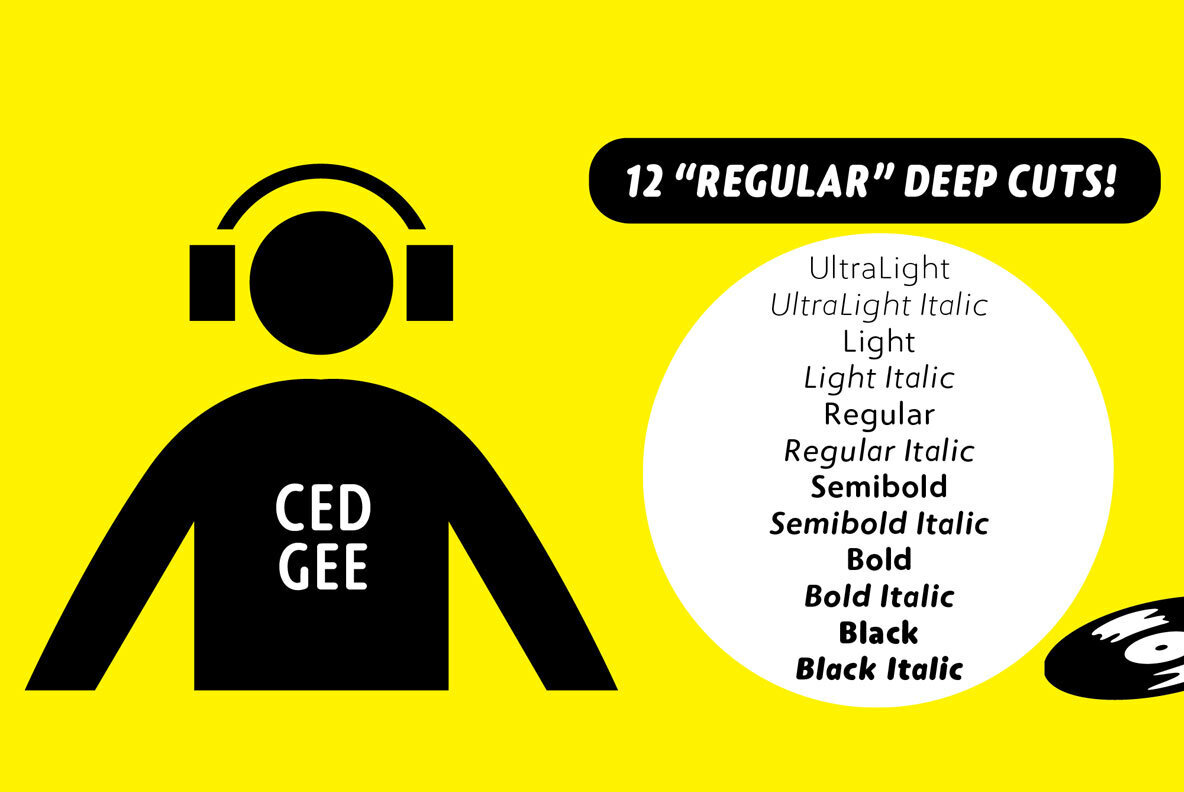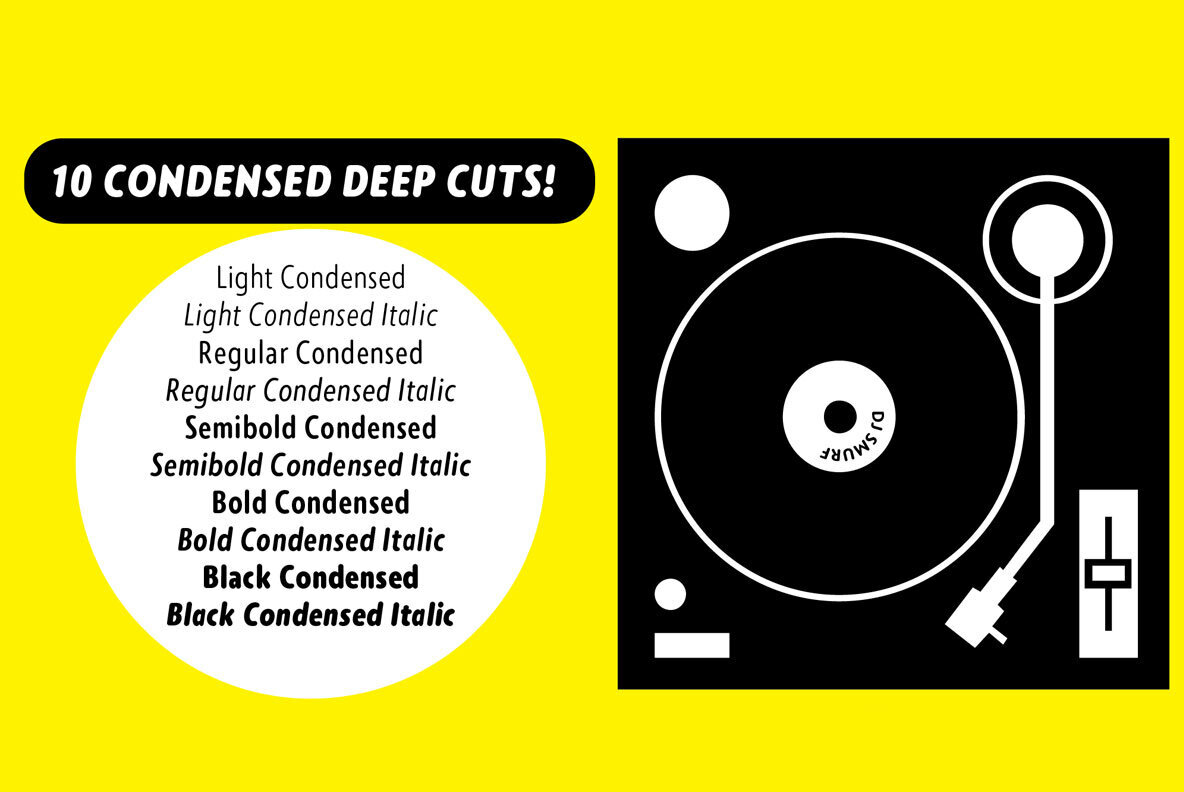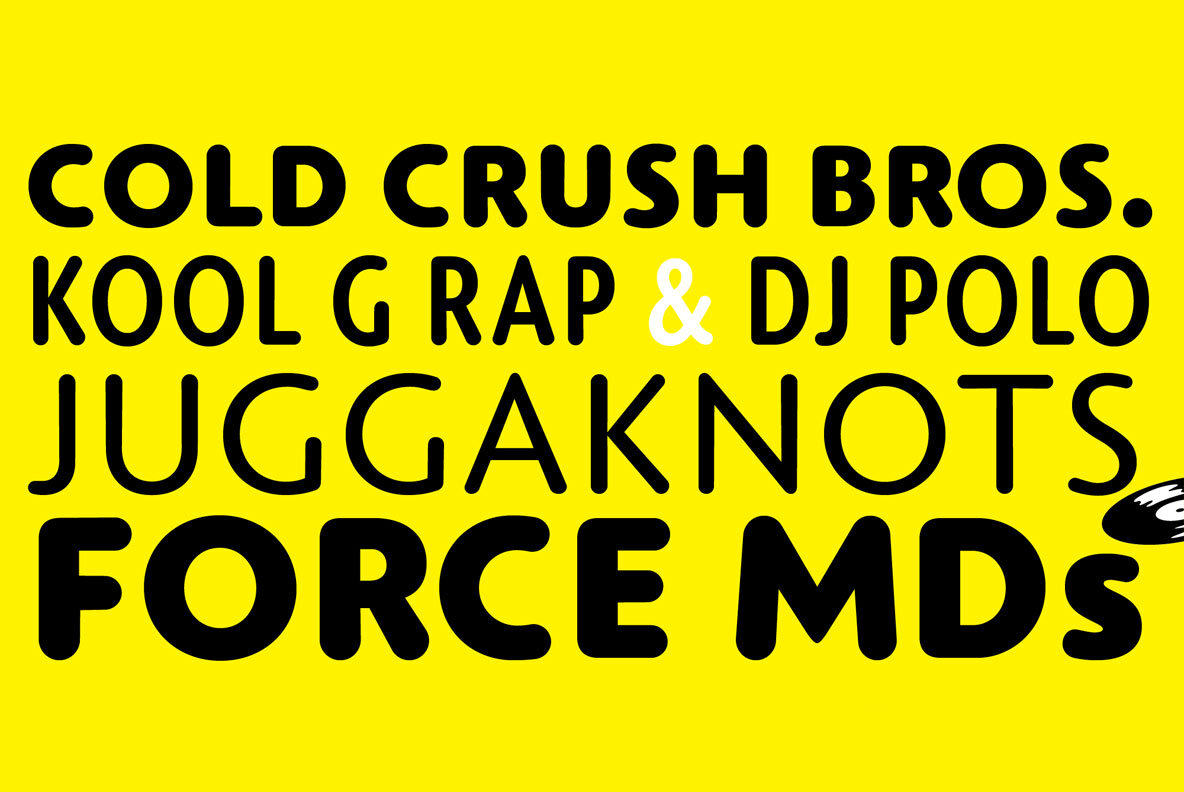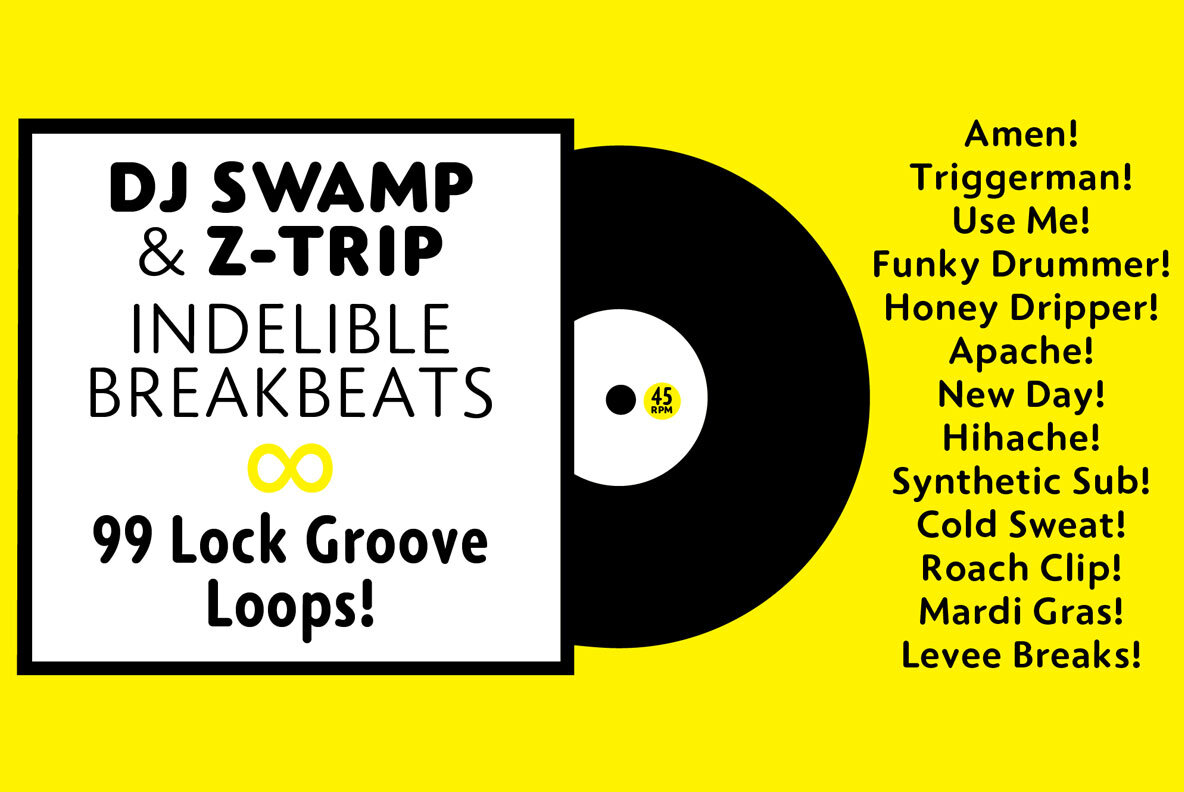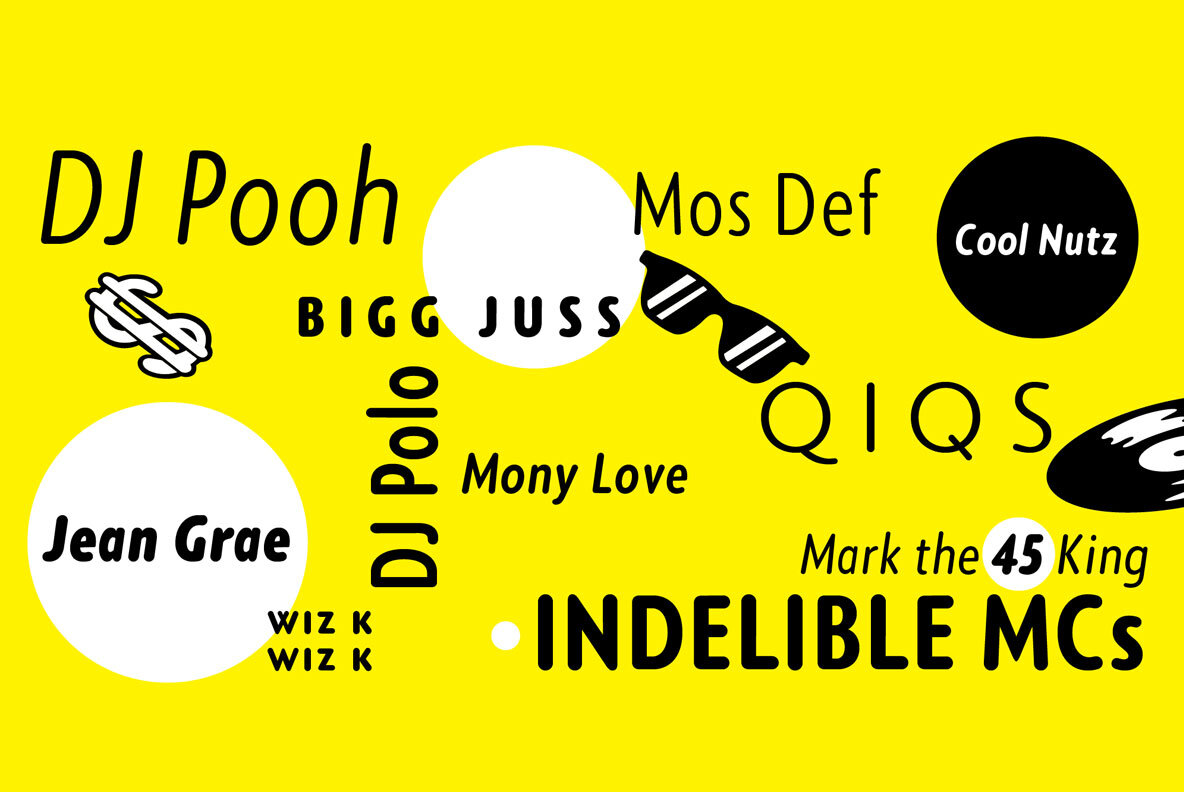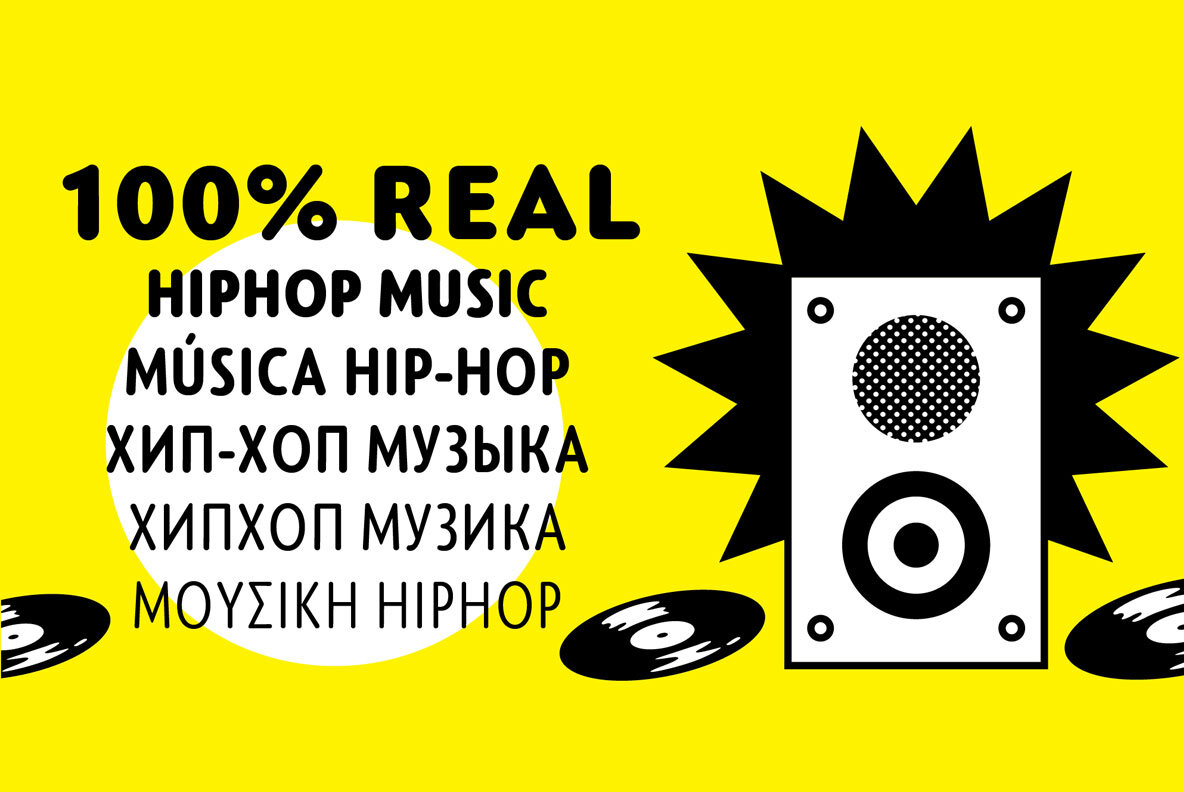
Elpy Font
Elpy is a friendly rounded sans serif workhorse family inspired by all things music! Spanning 22 Condensed and Regular weights with true italics, Elpy will fit right in with your record collection and your font collection! Elpy features Eastern, Western and Central European language support including Greek and Cyrillic. The heavier weights work well for display typography, while the lighter weights are perfect for text typography both for print and for screens.